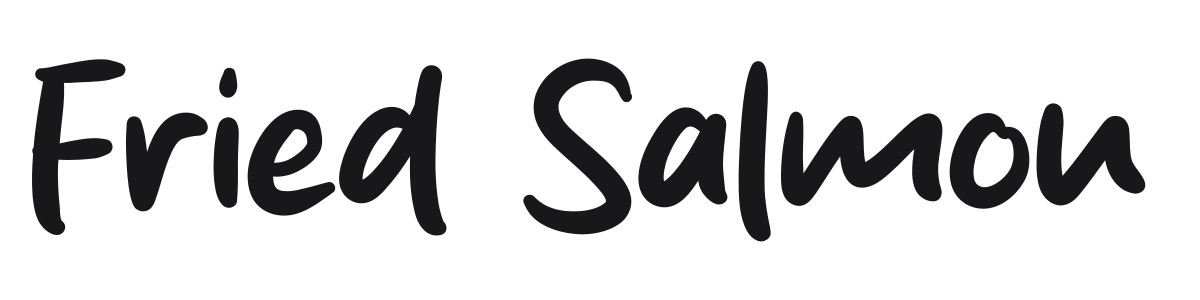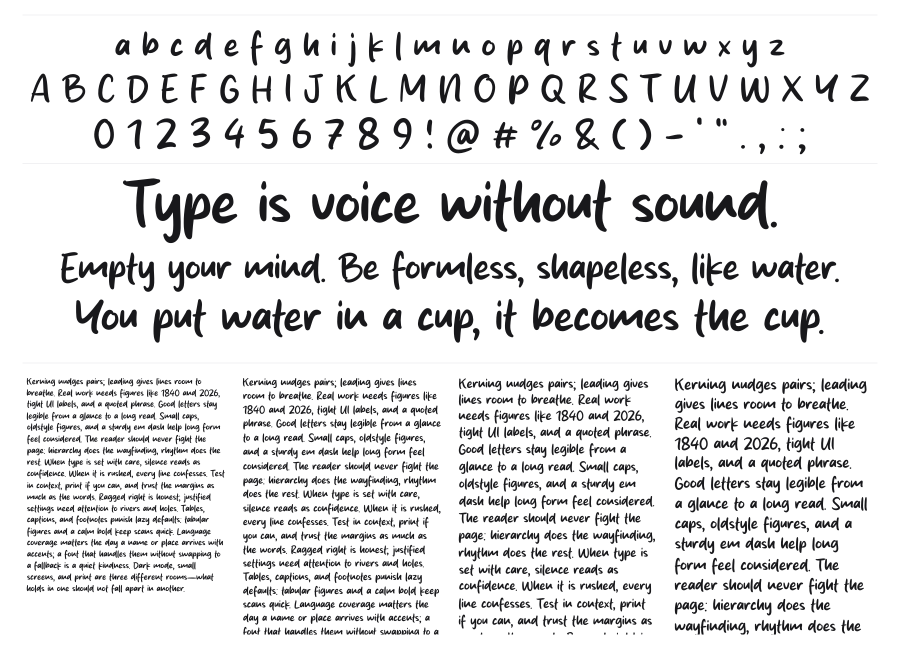
Fried Salmon
Fried Salmon is a bold casual script with the loose, confident energy of hand-lettering done with a thick marker. The irregular baseline and rounded terminals keep it feeling natural rather than mechanical. It works well anywhere you need type that feels human and unpretentious.